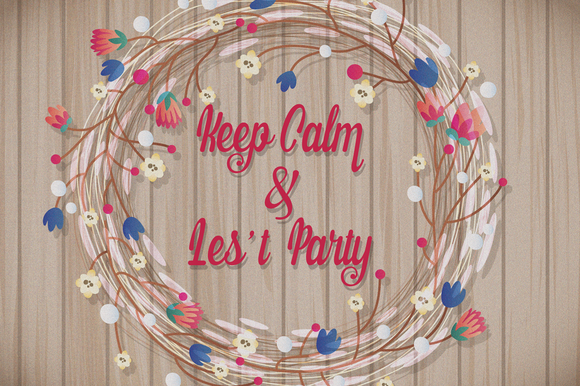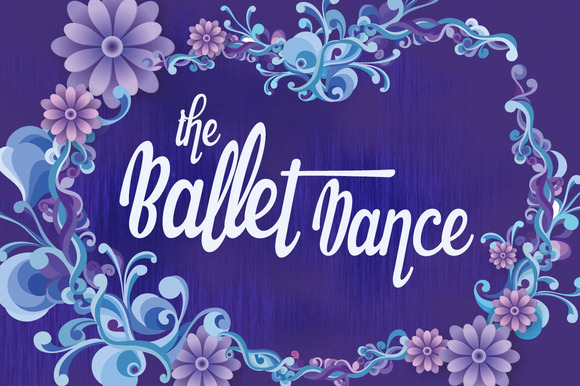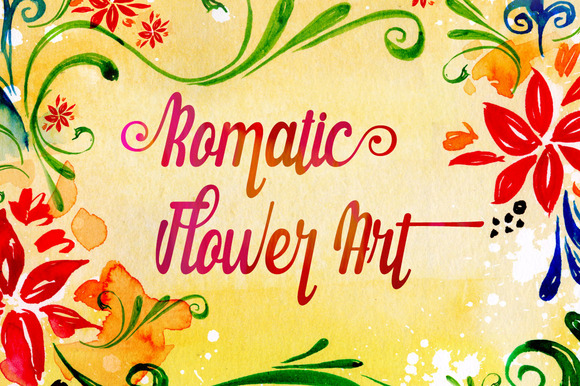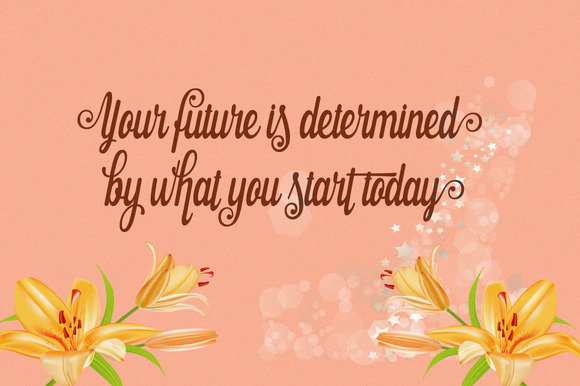
Bettaria Script Font
About Bettaria Script Font
Bettaria is a stunning hand-drawn font that feels like it has been written with a thick marker.
The Battaria font has 352 glyphs and offers 136 alternates.